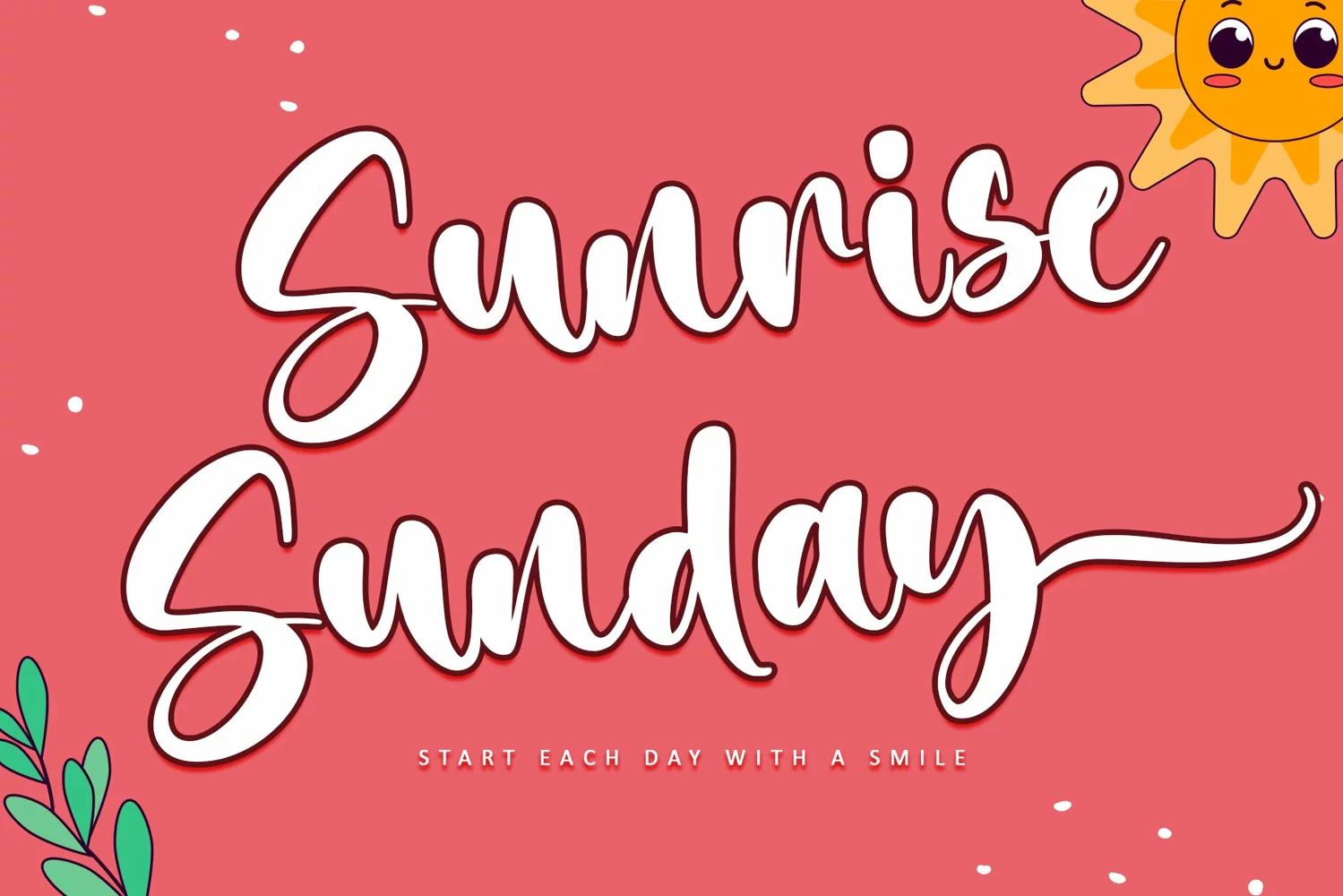
Introducing "Sunrise Sunday," a whimsical handwritten font that embodies elegance and charm. With its playful curves and impeccable letterforms, this font adds a delightful touch to your projects. Whether it's for branding, packaging, websites, posters, logos, advertising, or any creative endeavor that needs a touch of whimsy, "Sunrise Sunday" elevates your designs with its enchanting allure. Embrace the ethereal beauty and timeless charm of "Sunrise Sunday" leaving a lasting impression with every stroke.